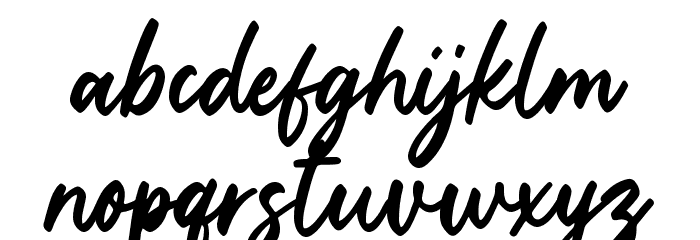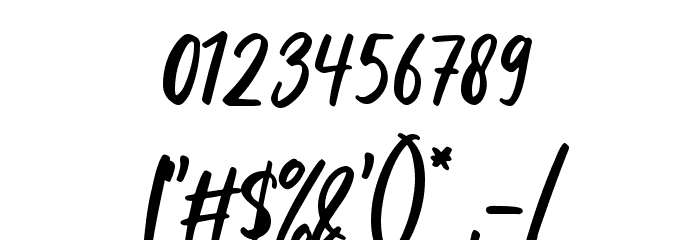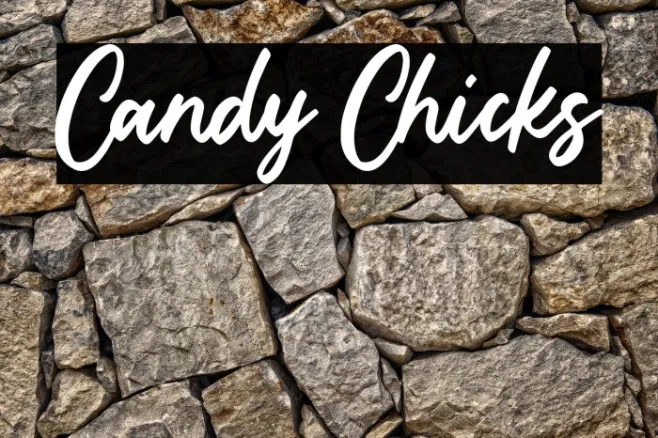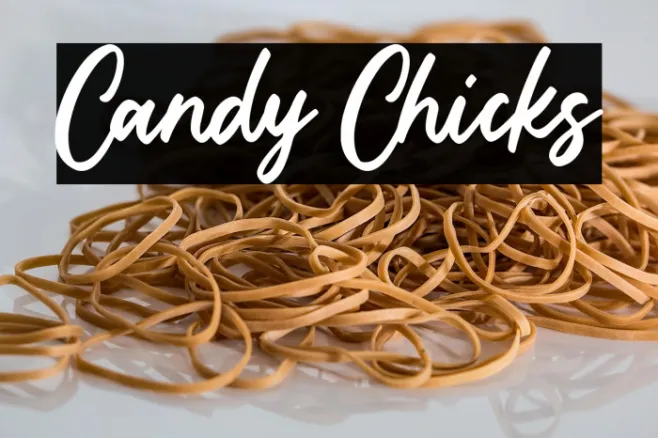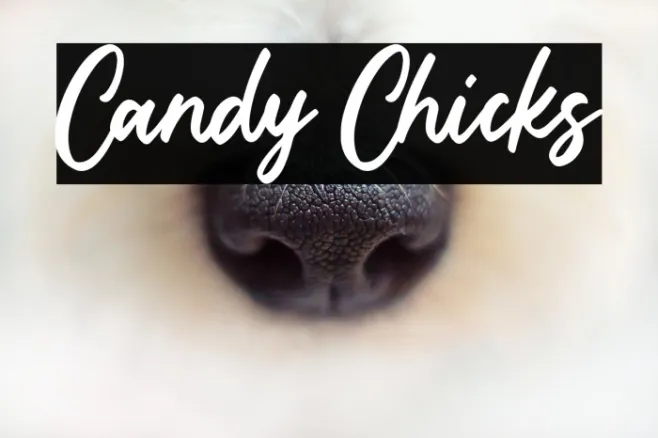
Candy Chicks Font
This font features a lively and playful script style with a handwritten appearance. The letters are connected in a fluid manner, giving it a dynamic and energetic feel. The uppercase characters are bold and slightly slanted, while the lowercase letters maintain a consistent flow with rounded edges. The numbers and special characters follow the same playful style, adding to the overall cohesive look. This font is perfect for projects that require a personal touch, such as invitations, greeting cards, or branding for creative businesses. Its unique style makes it stand out, offering a sense of warmth and friendliness.
A lively, handwritten script font with a playful and dynamic style.
- Proposed Projects: Ideal for invitations, greeting cards, branding, and creative projects.
- Use Case: Logos, Headlines, Invitations